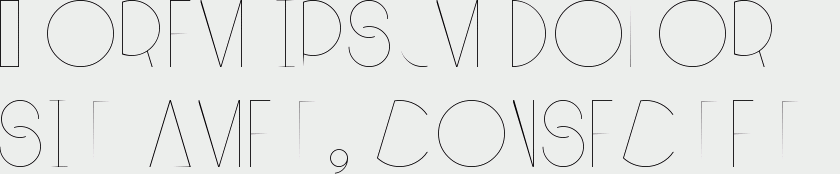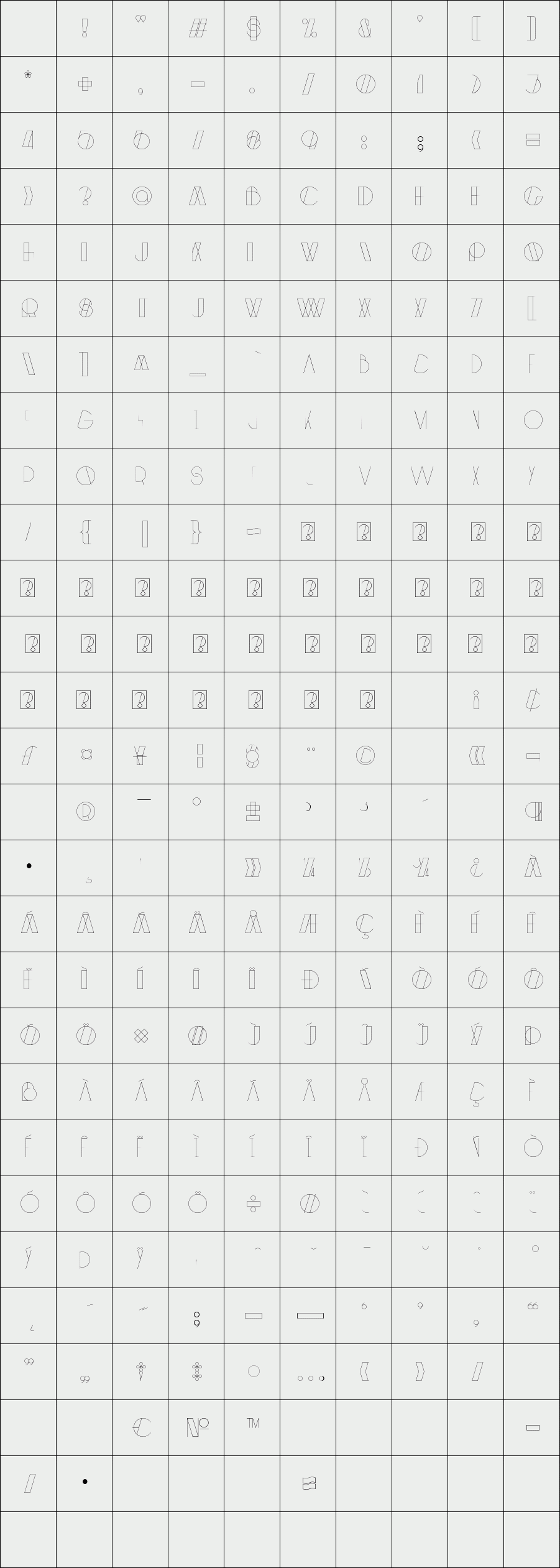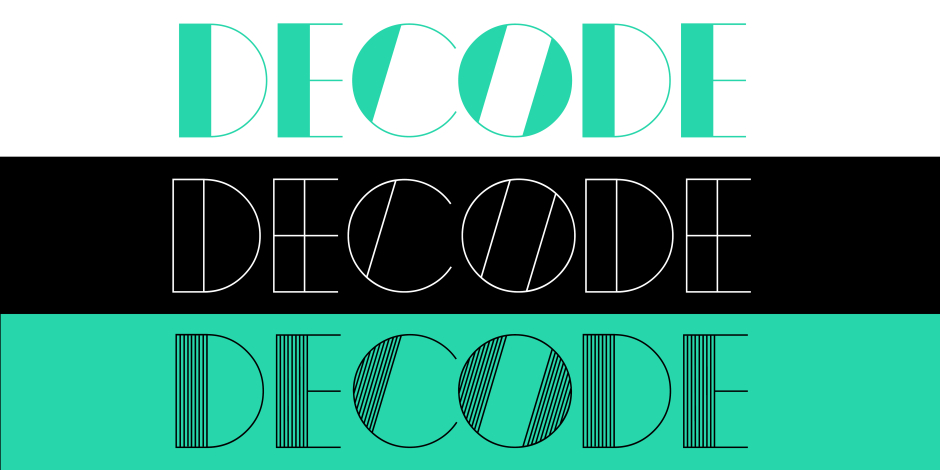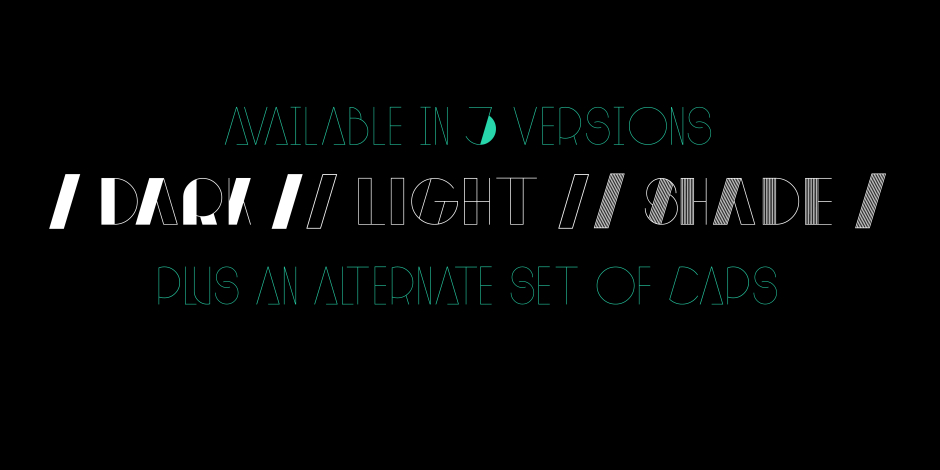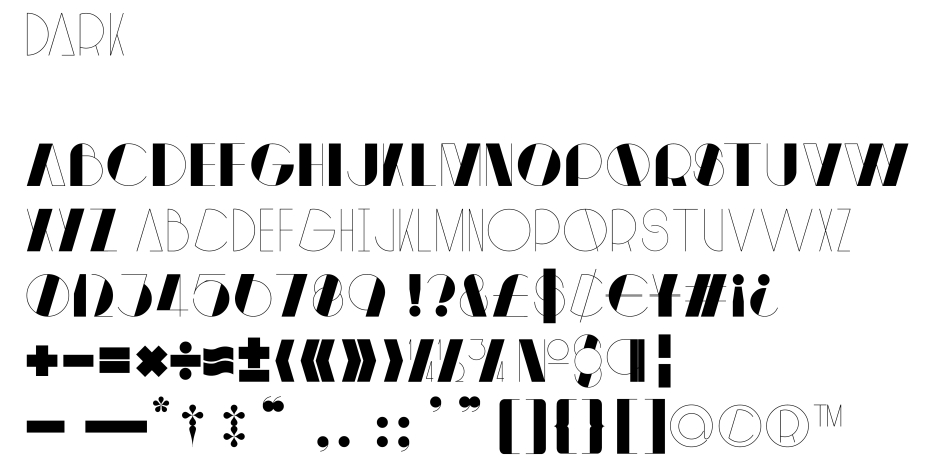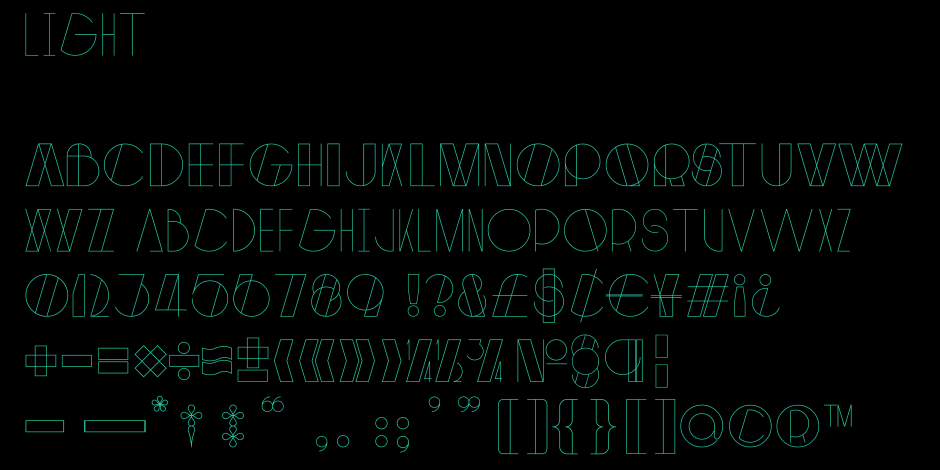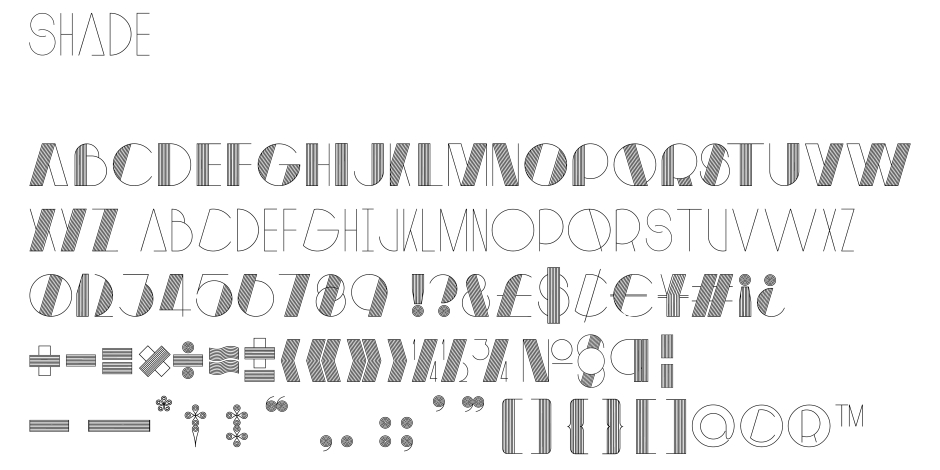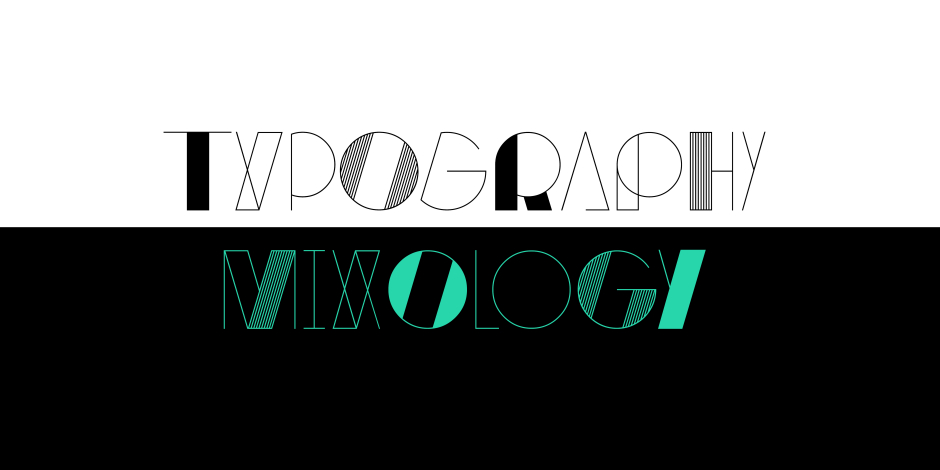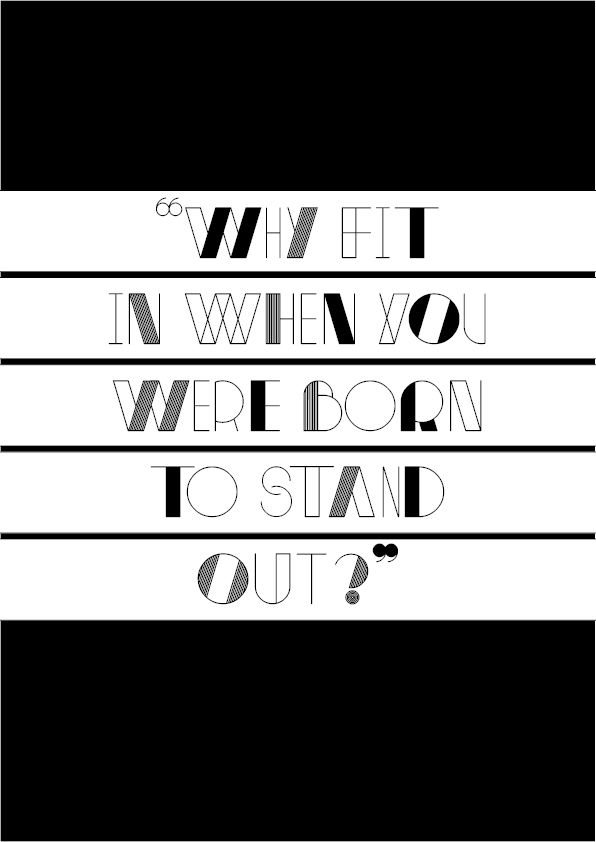
Decode
/ Decode Light
Decode is a retro styled font, referencing the art deco typography from the 1920’s and 30’s. The font is designed to be in keeping with the art deco style but with a contemporary and modern finish making it a stylish font for all kinds of work.